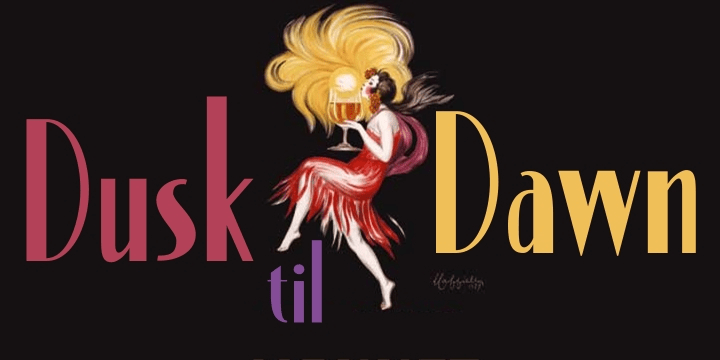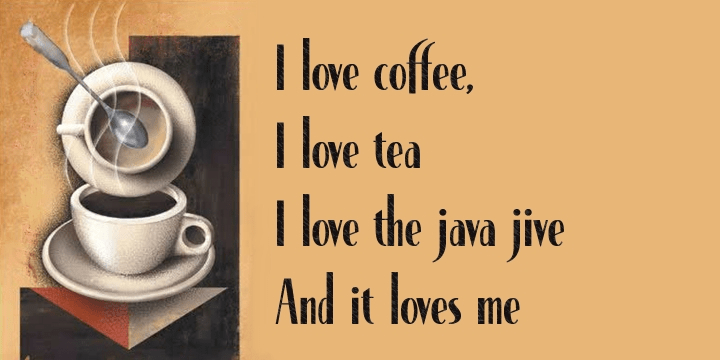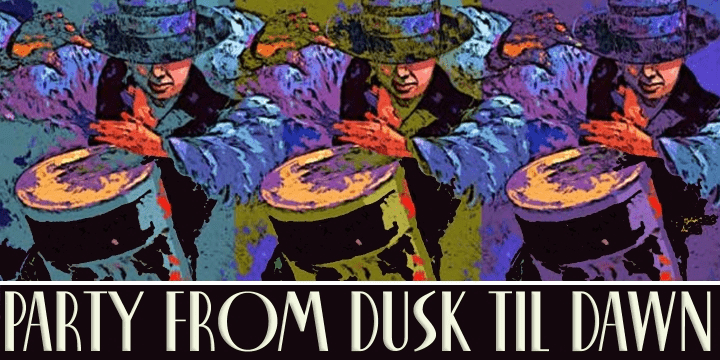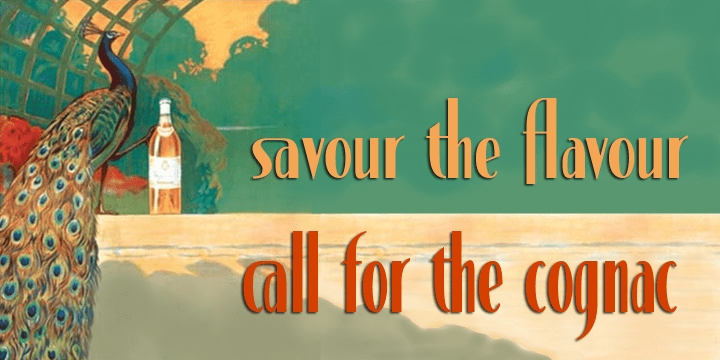
About Dusk Til Dawn
As with Nocturne, Dusk til Dawn recalls the romantic, sophisticated Zeitgeist of the early 20th century, that nostalgic time ?between the wars?. It as a number of attractive ligatures and upper-case alternates. I have used Nocturne as a basis for Dusk…